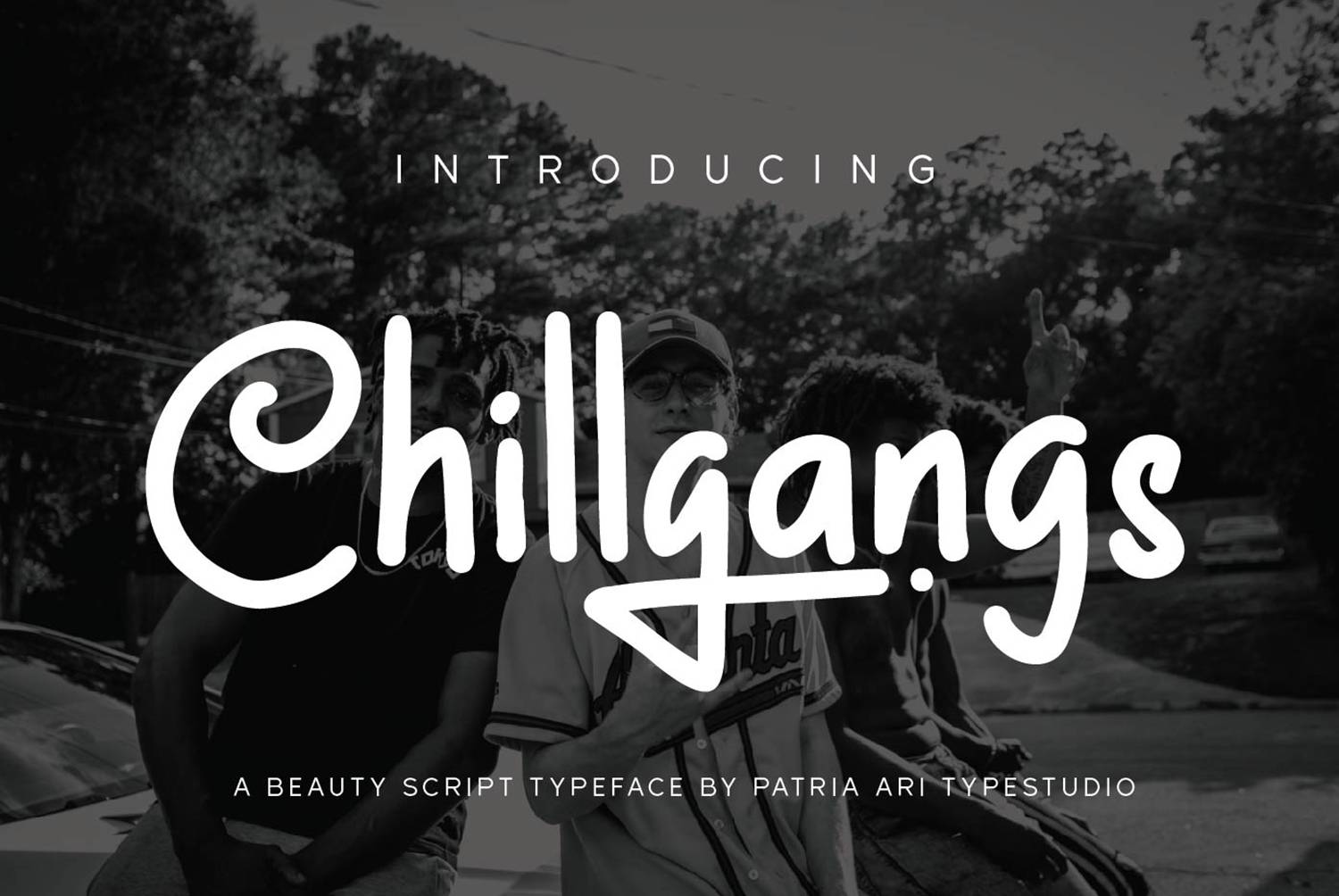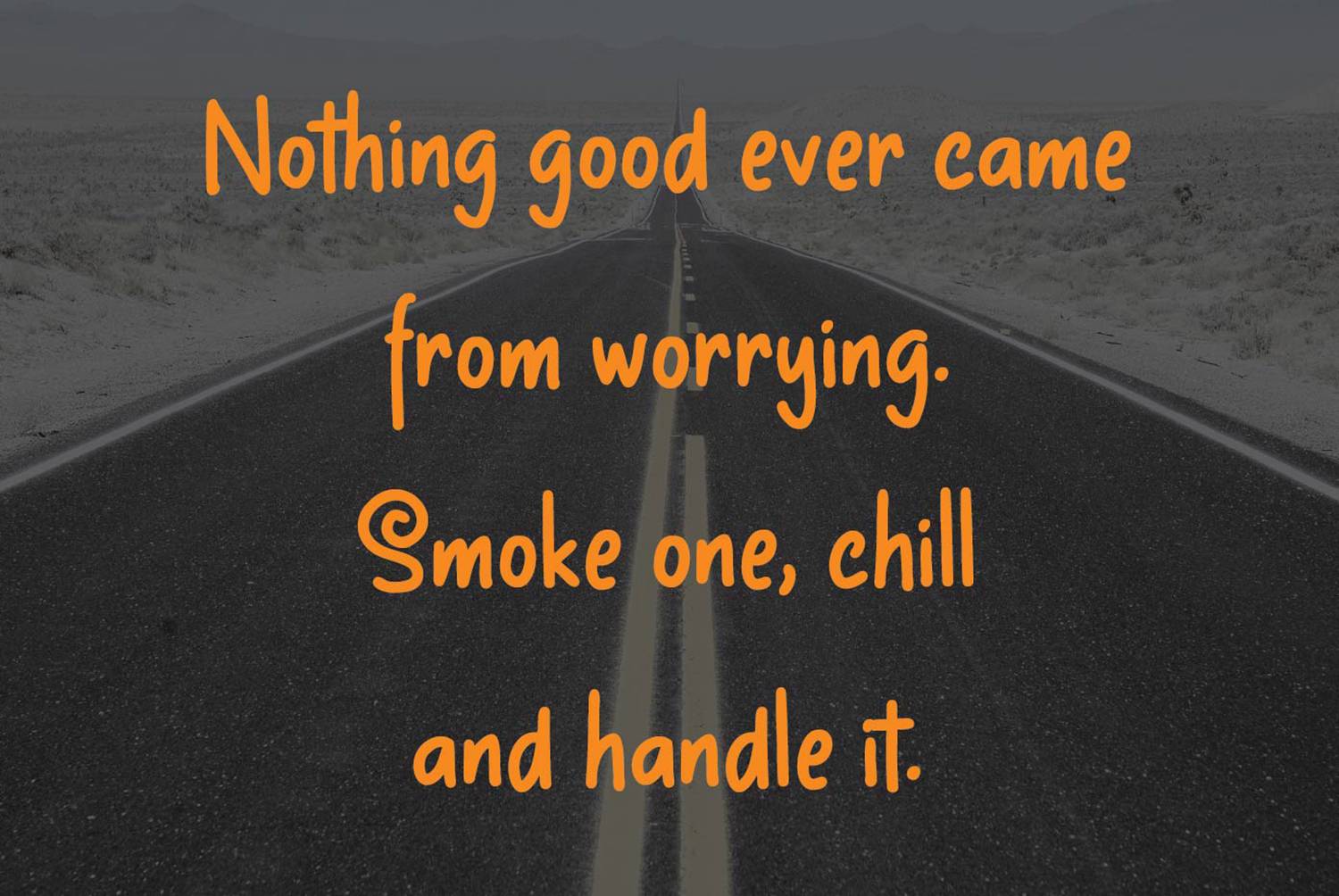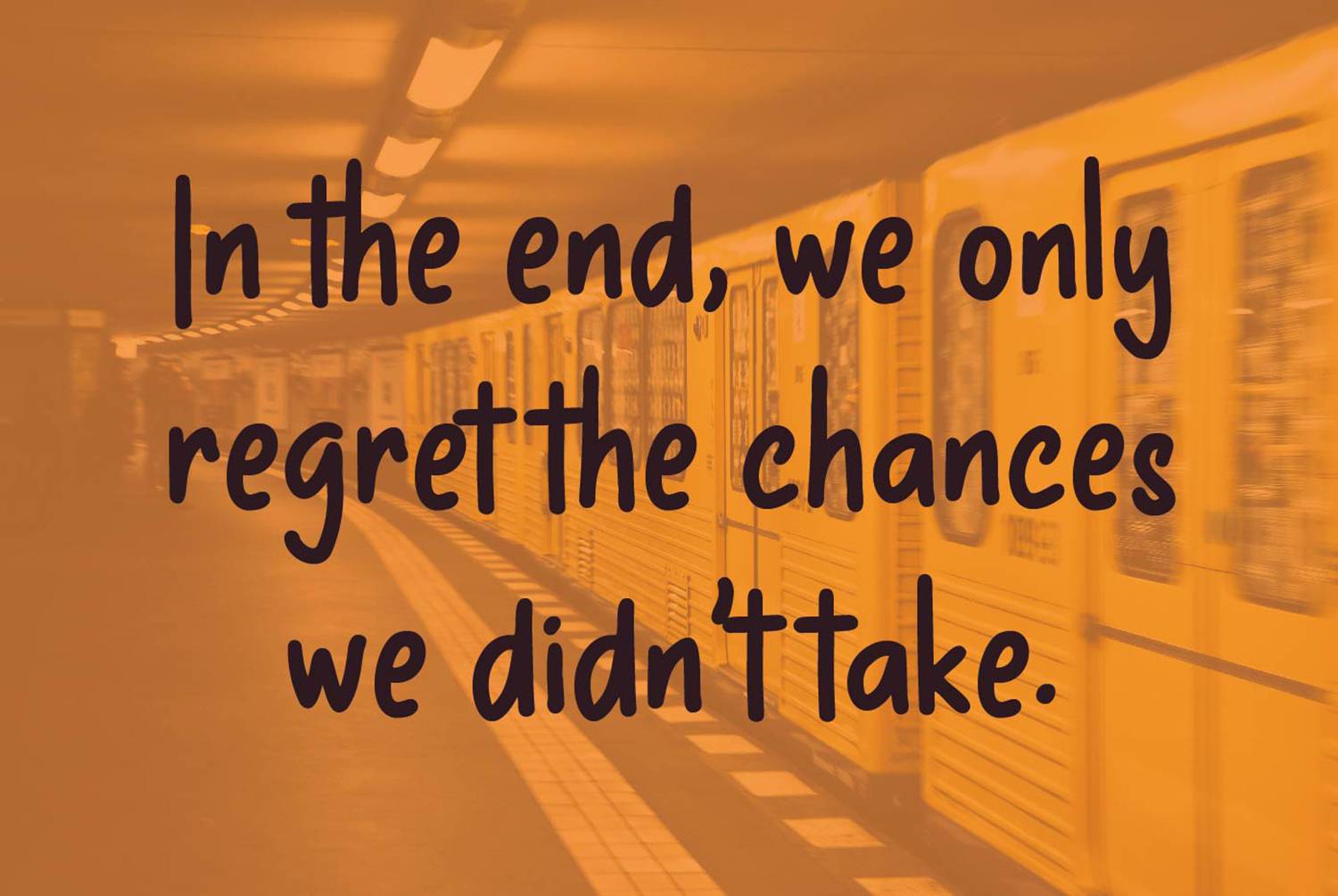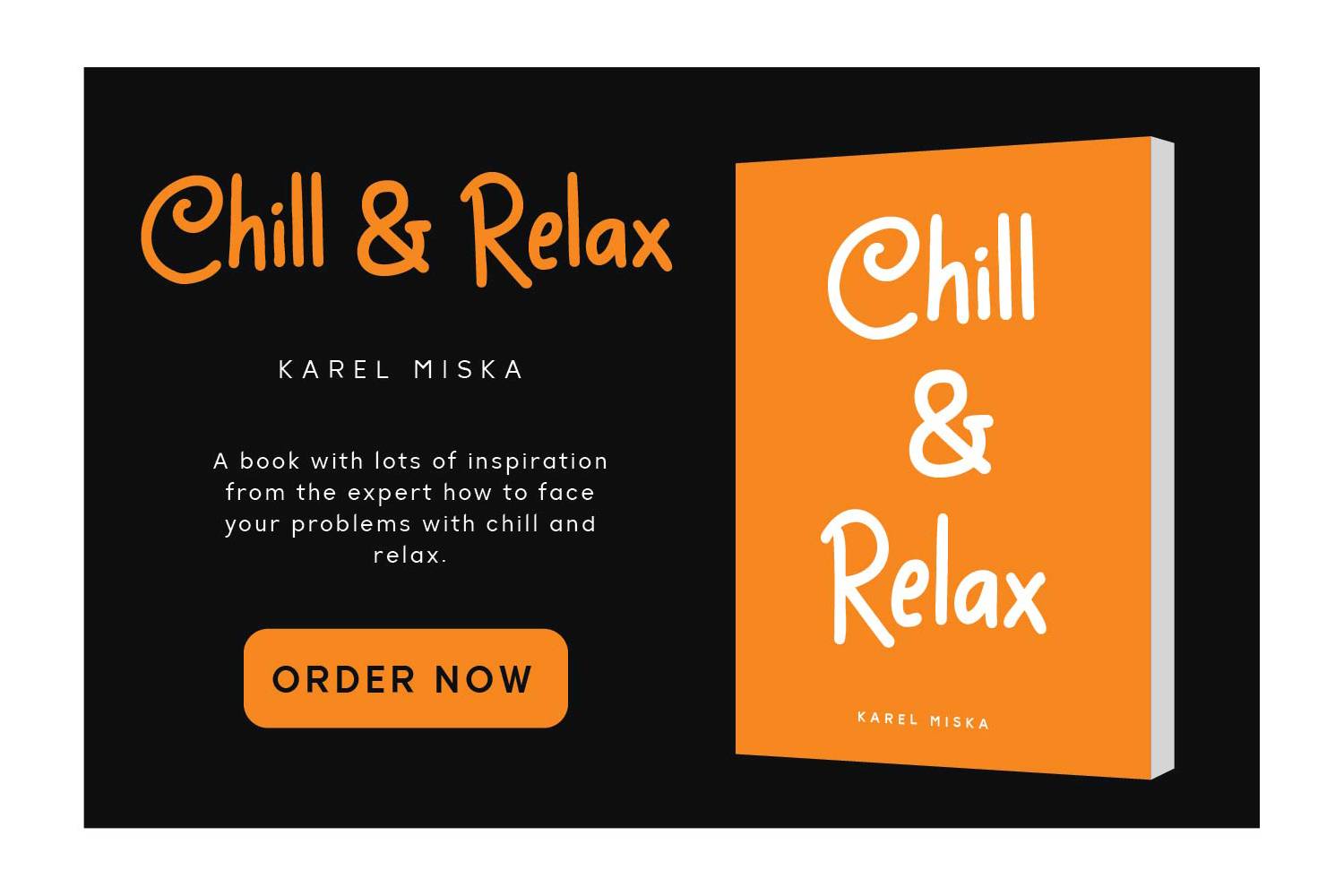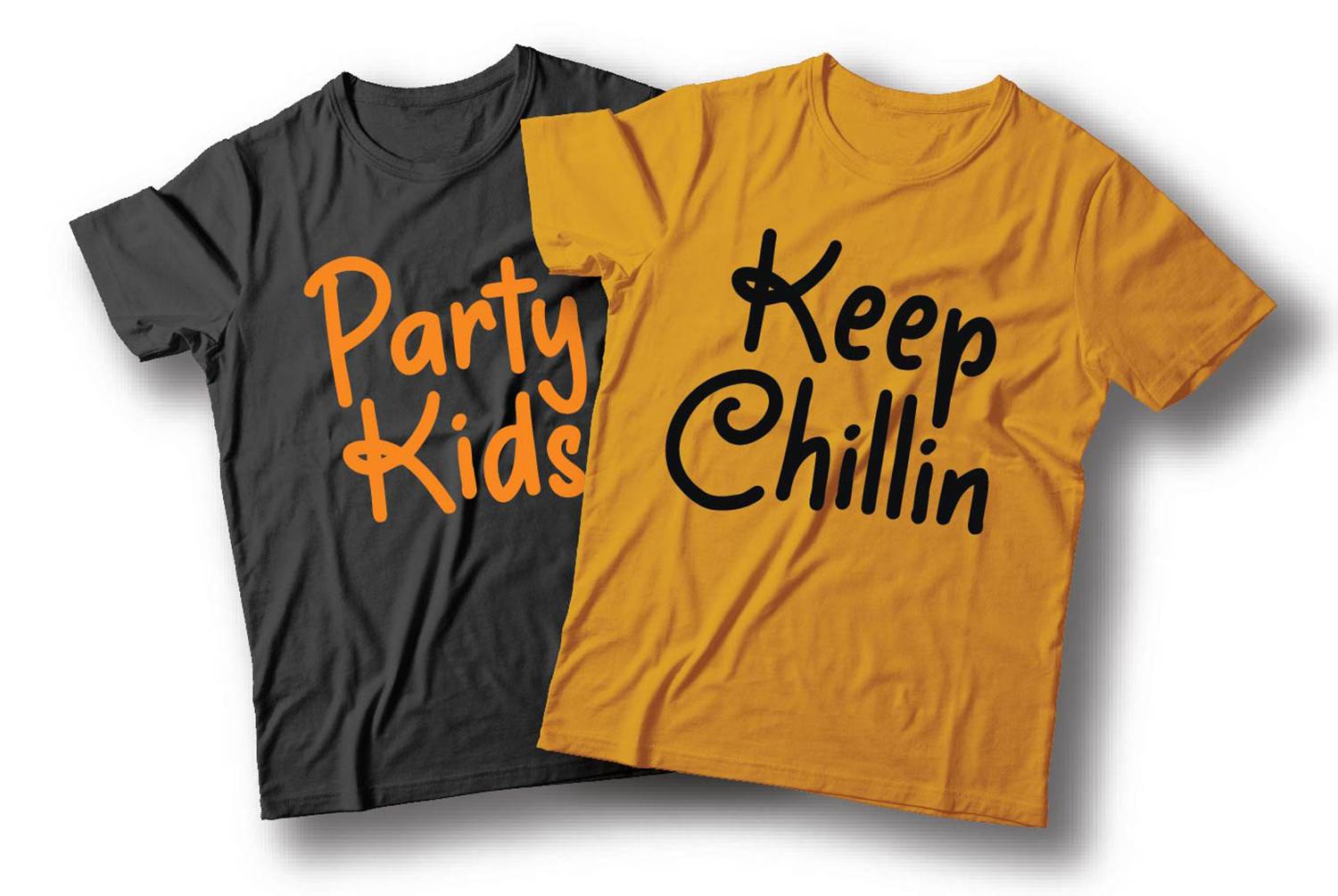
Chillgangs is a playful and casual handwritten font that features smooth, rounded strokes with a lively, informal character. Its moderate weight and slightly condensed width make it ideal for friendly, approachable designs, perfect for branding, logos, and creative projects that need a fun and youthful vibe. This font works well in contexts where a personal, upbeat touch is desired, such as kids' products, social media graphics, and informal headlines.
Chillgangs Font
About Chillgangs Font
| Font family | Chillgangs Font |
| Release date | 2020-10-26 |
| Designer | Patria Ari Wijonarko |